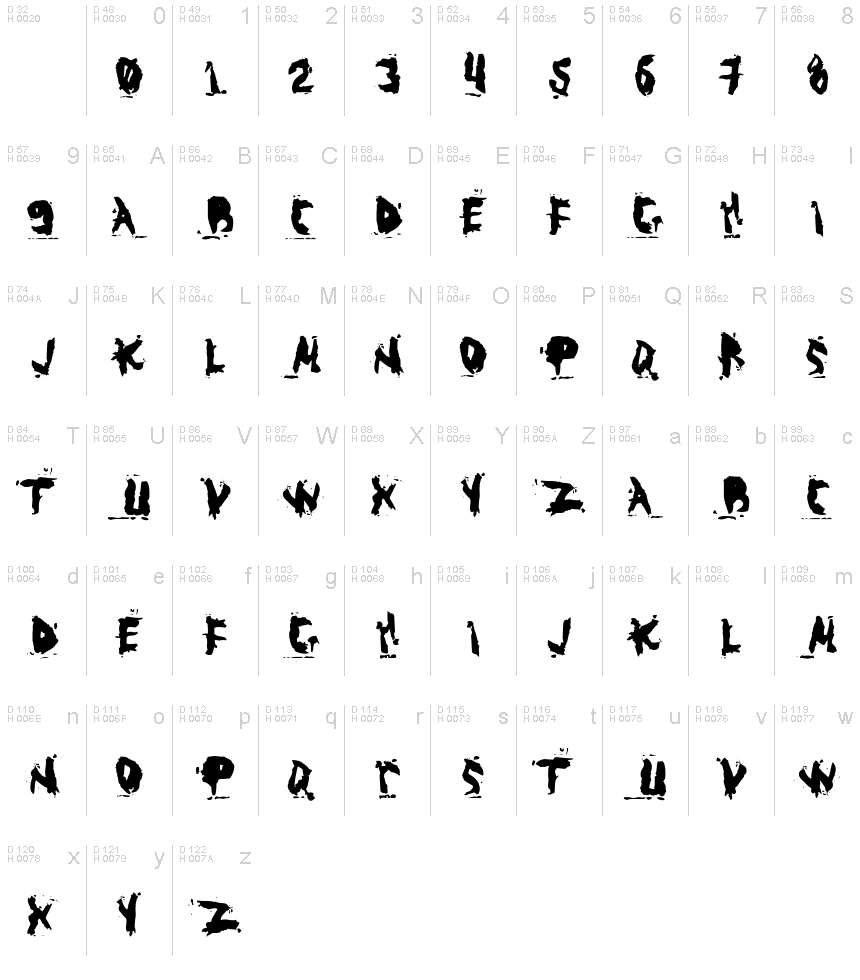
ABUSO
Abuso is a captivating display font that exudes a sense of unease and distortion. Its bold, jagged letterforms evoke a palpable tension, inviting the viewer to delve deeper into its unsettling aesthetic. The font's unique style lends itself particularly well to horror-themed designs, such as movie posters, book covers, and gamer branding. Its distorted appearance also makes it a striking choice for bold headlines, attention-grabbing logos, and disruptive advertising campaigns.
Abuso's raw, primal nature commands attention and leaves a lasting impression, making it a versatile tool for designers seeking to create impactful, visually striking pieces.